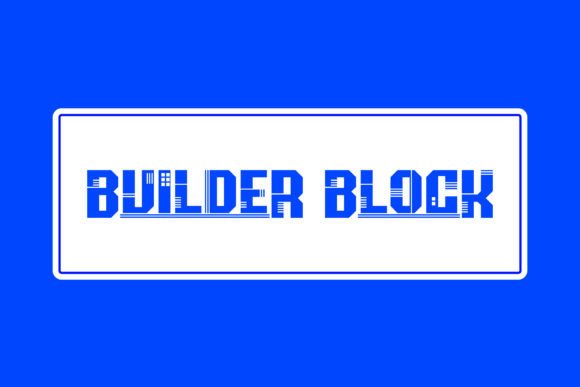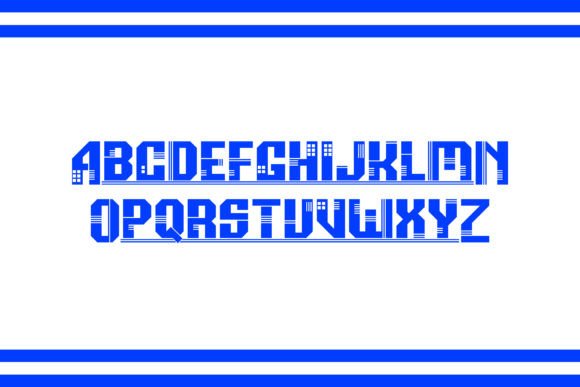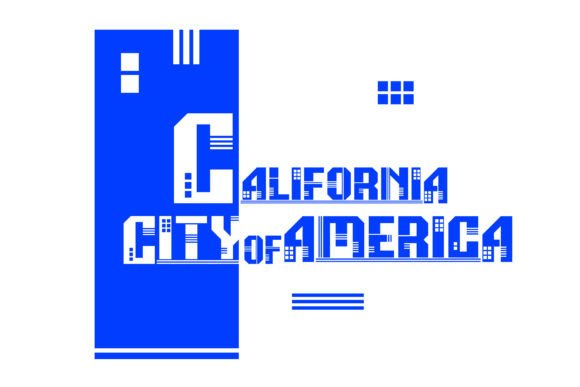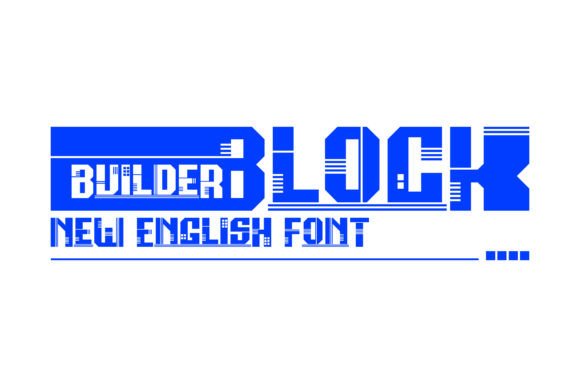
Builder Block Font
About the Builder Block Font
The wait is over! The incredible Builder Block Font is now available for your design toolkit. Builder Block is a chic decorative font blending Gothic and modern aesthetics. Its bold style makes it perfect for movie titles, t-shirt designs, web layouts, and stylish posters. With 96 glyphs and 95 characters, it exudes a construction-inspired vibe.
Builder Block’s strong geometric forms excel in headlines, logos, and short, impactful text on packaging or posters. Its bold character makes it unsuitable for body text or lengthy paragraphs; readability suffers at smaller sizes. Avoid using it in UI contexts where legibility is paramount.
The font’s inherent boldness pairs well with clean sans-serif fonts like Open Sans or Lato for a balanced contrast. For a more sophisticated feel, consider pairing it with a classic serif like Garamond or a subtly geometric sans-serif like Montserrat. Avoid pairing it with other highly decorative fonts, as this would create visual chaos.
Builder Block projects a confident, modern, and slightly industrial personality. It’s ideal for brands emphasizing strength, innovation, or a retro-futuristic aesthetic. Think construction, architecture, technology, or high-end streetwear.
Builder Block Font Usage Examples
Builder Block Font Example